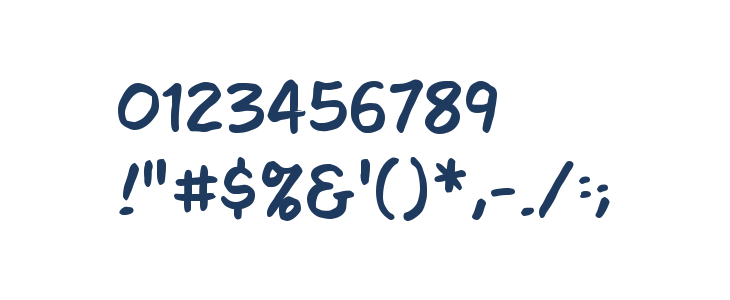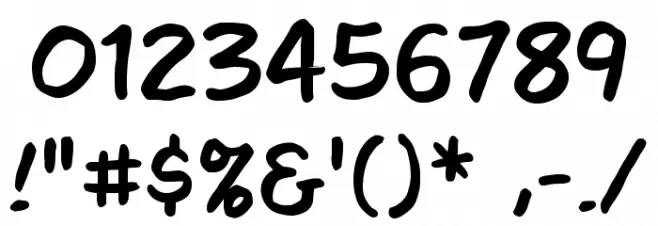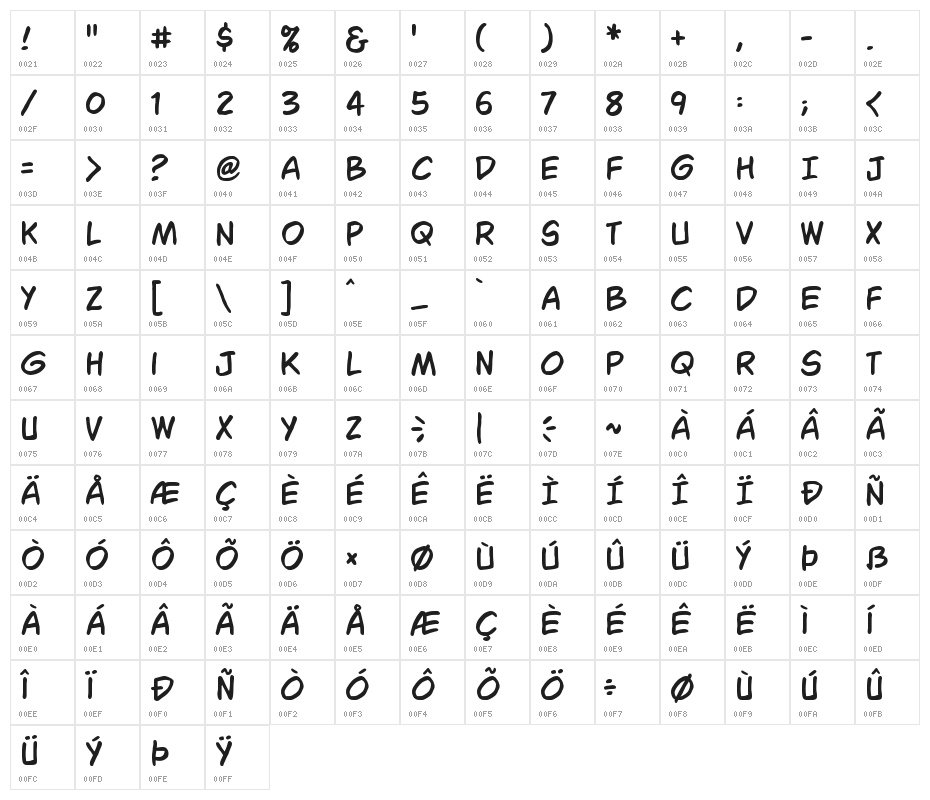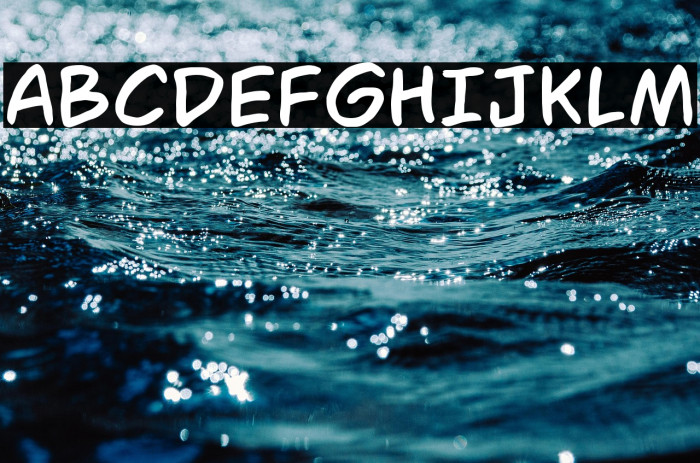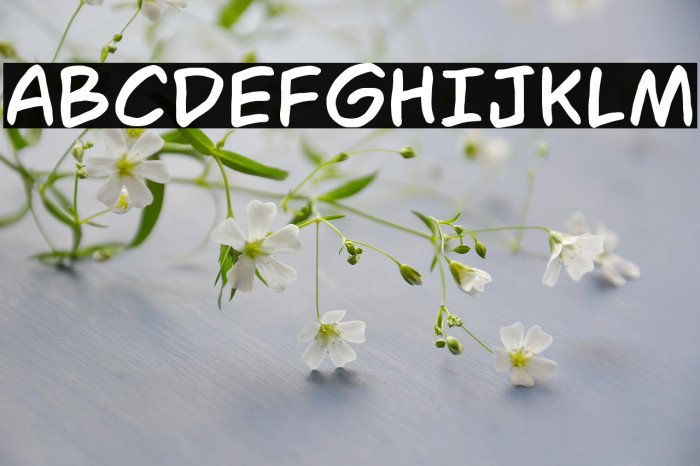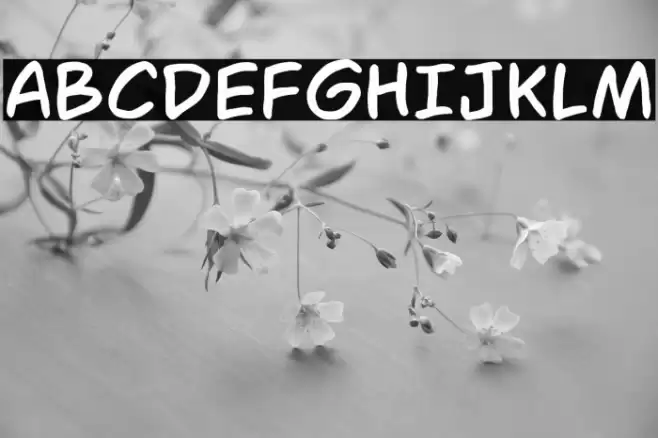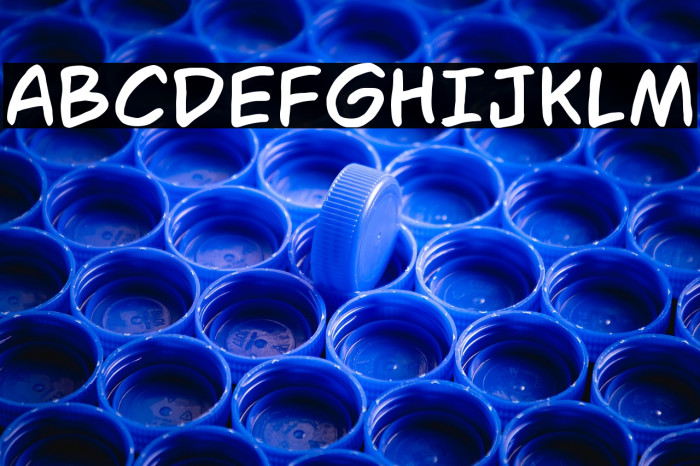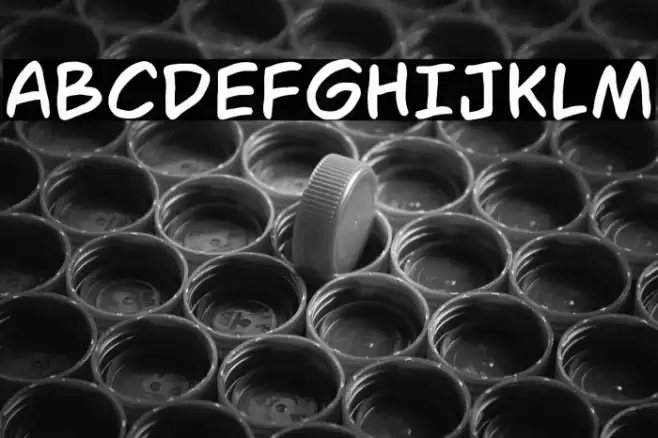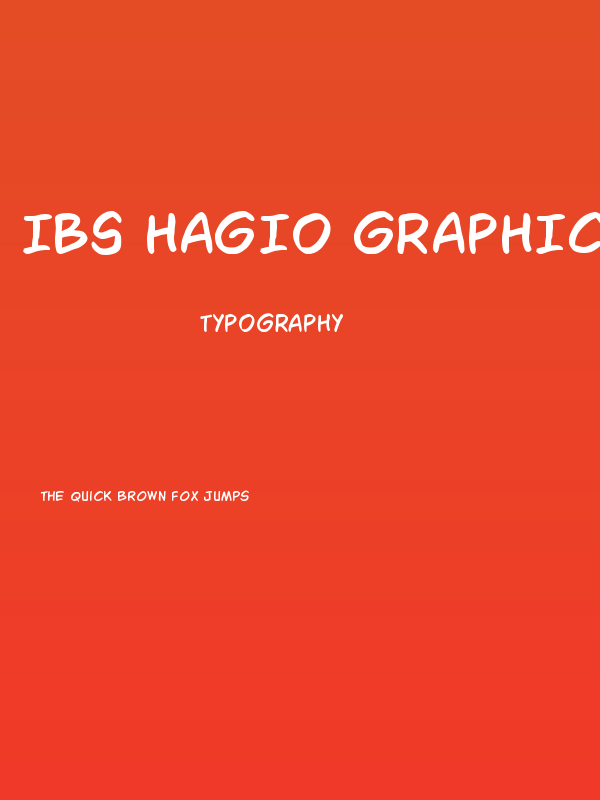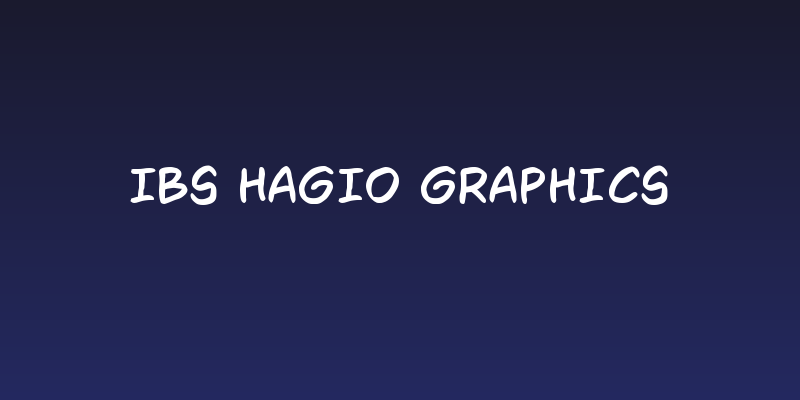
IBS Hagio Graphics Font
IBS Hagio Graphics Description
This font features a playful and casual handwritten style, characterized by its bold and slightly irregular strokes. The letters have a rounded, organic feel, giving them a friendly and approachable appearance. The uppercase and lowercase letters maintain a consistent style, with a slight slant that adds to the informal aesthetic. The numerals and special characters are designed to match the overall look, ensuring a cohesive appearance across all text. This font is well-suited for projects that require a personal touch or a relaxed vibe.
| Proposed Projects | Ideal for greeting cards, children's books, casual branding, and social media graphics. |